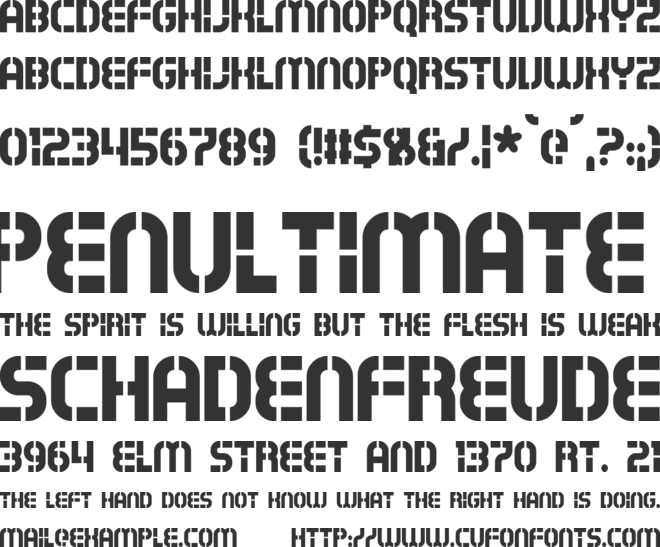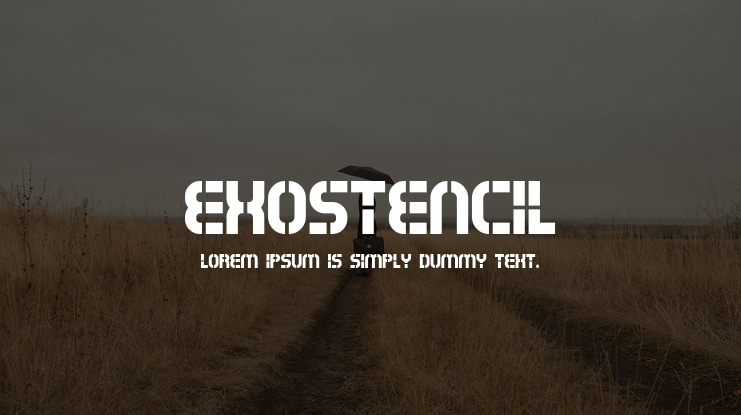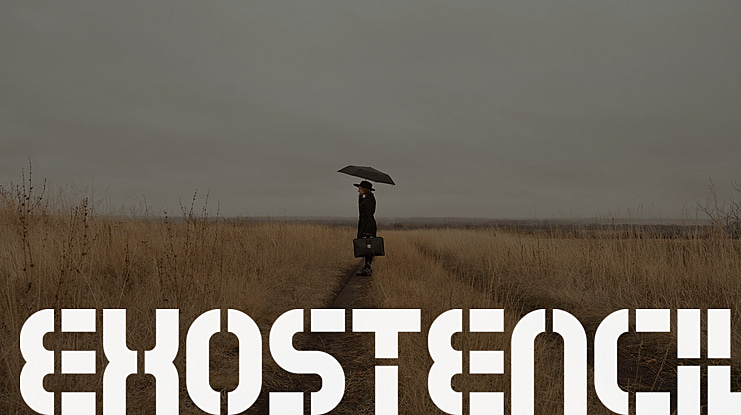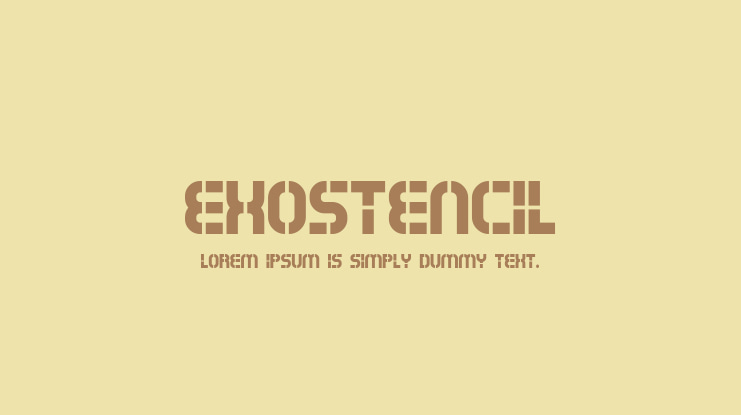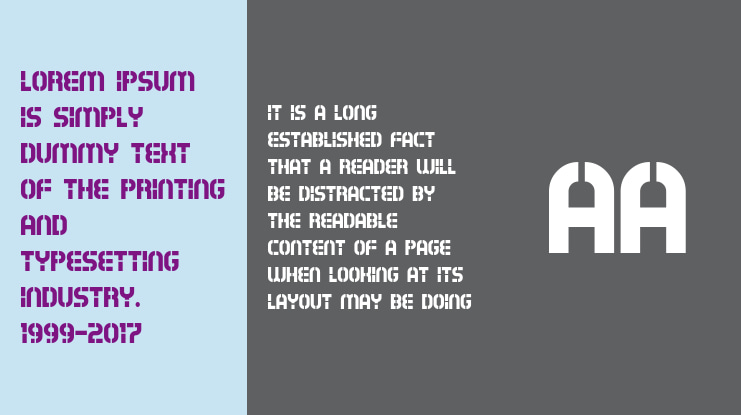
Exostencil Font Family
Exostencil is a 1970's based, curvy typeface which oddly has stencil-style cuts to give it a unique look. Includes full alphabet, numerals, extended punctuation and Euro. Comes in regular and italic styles.